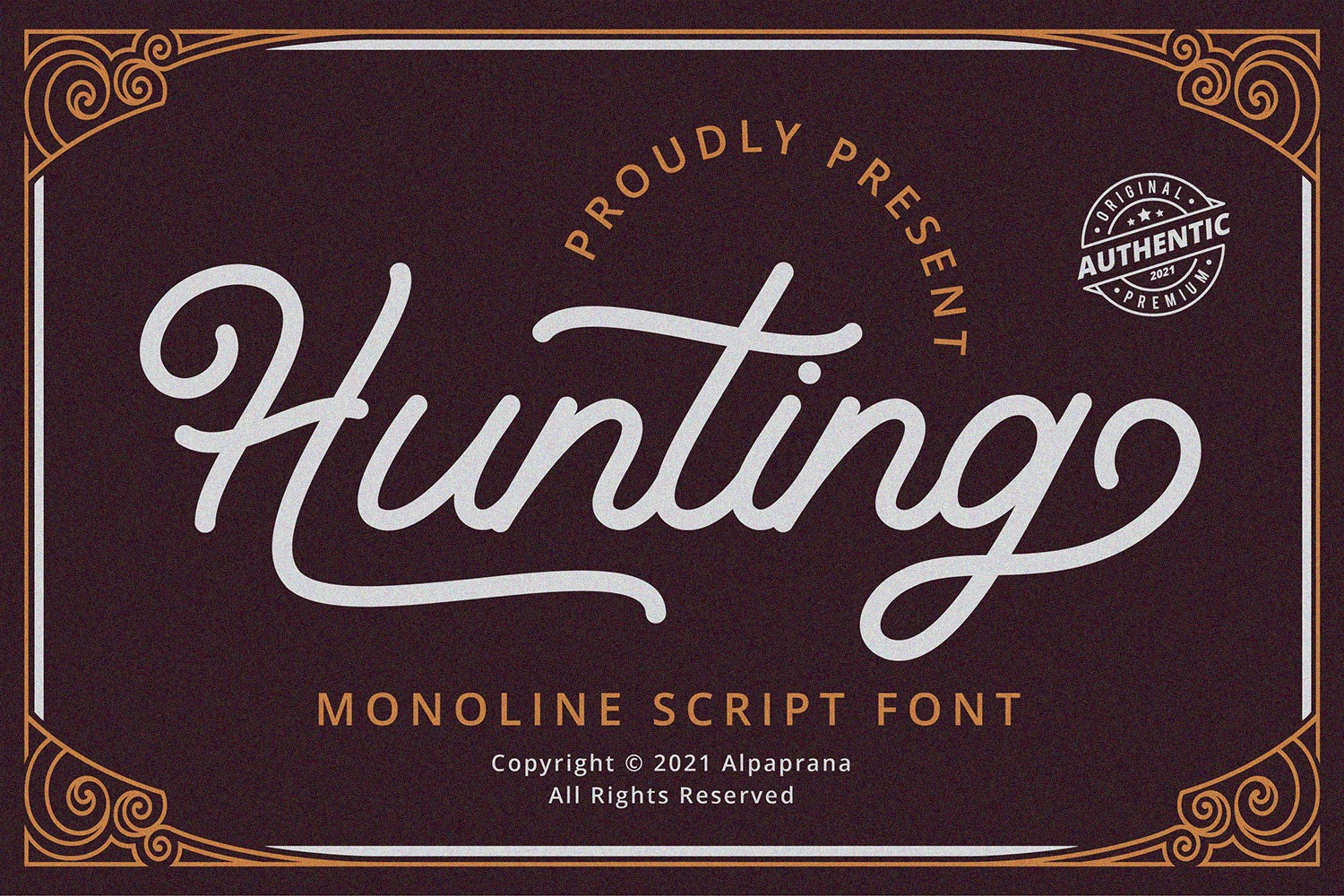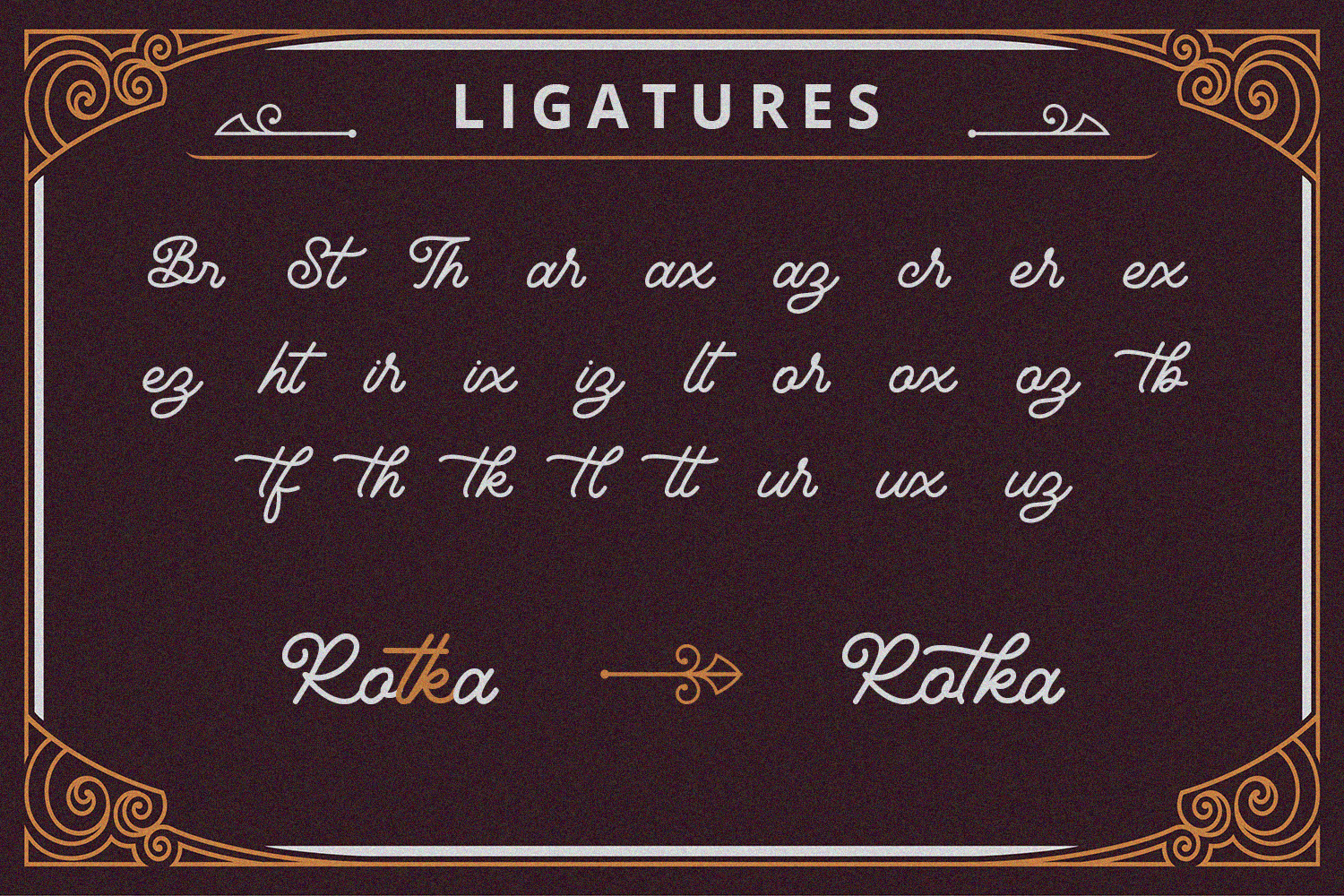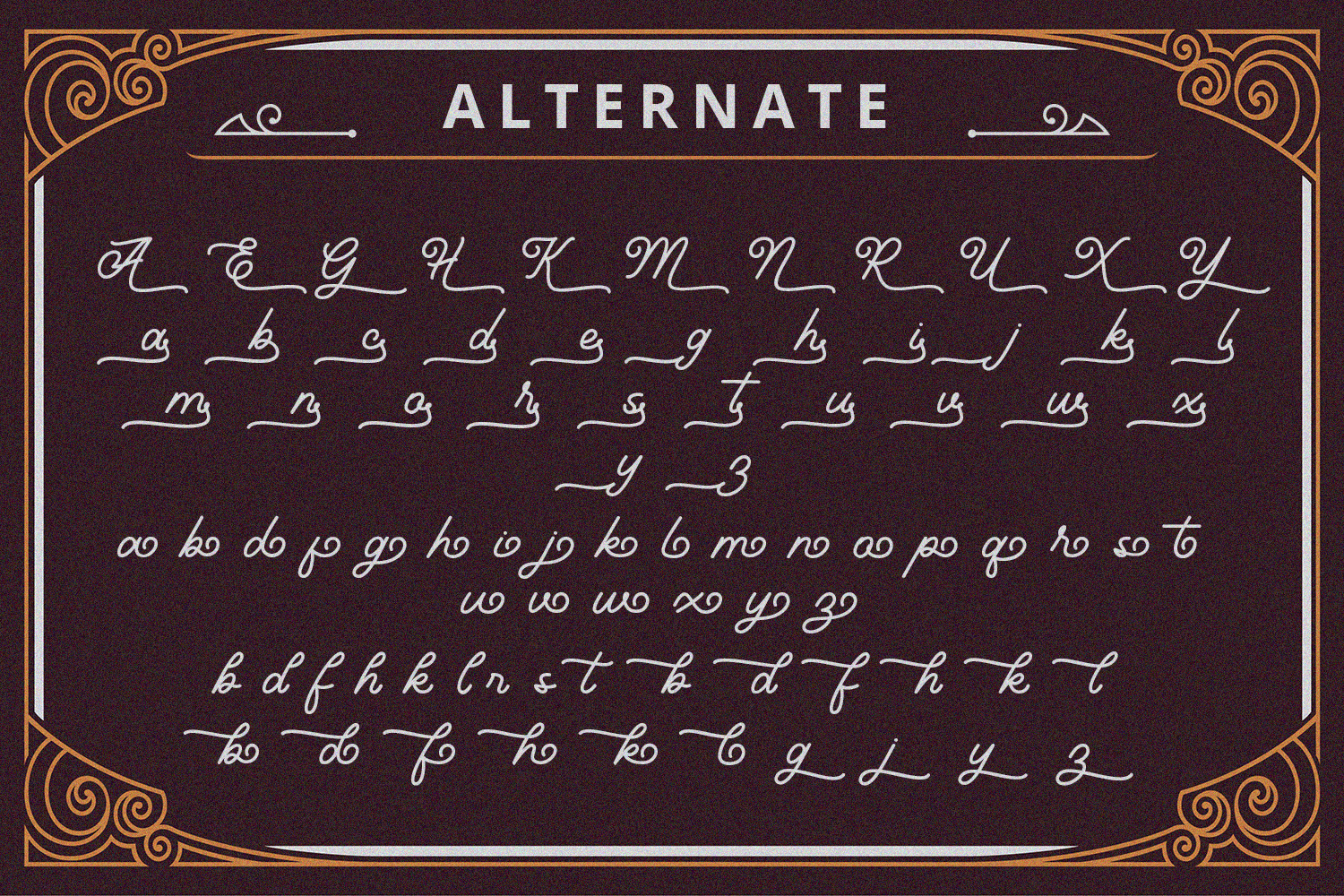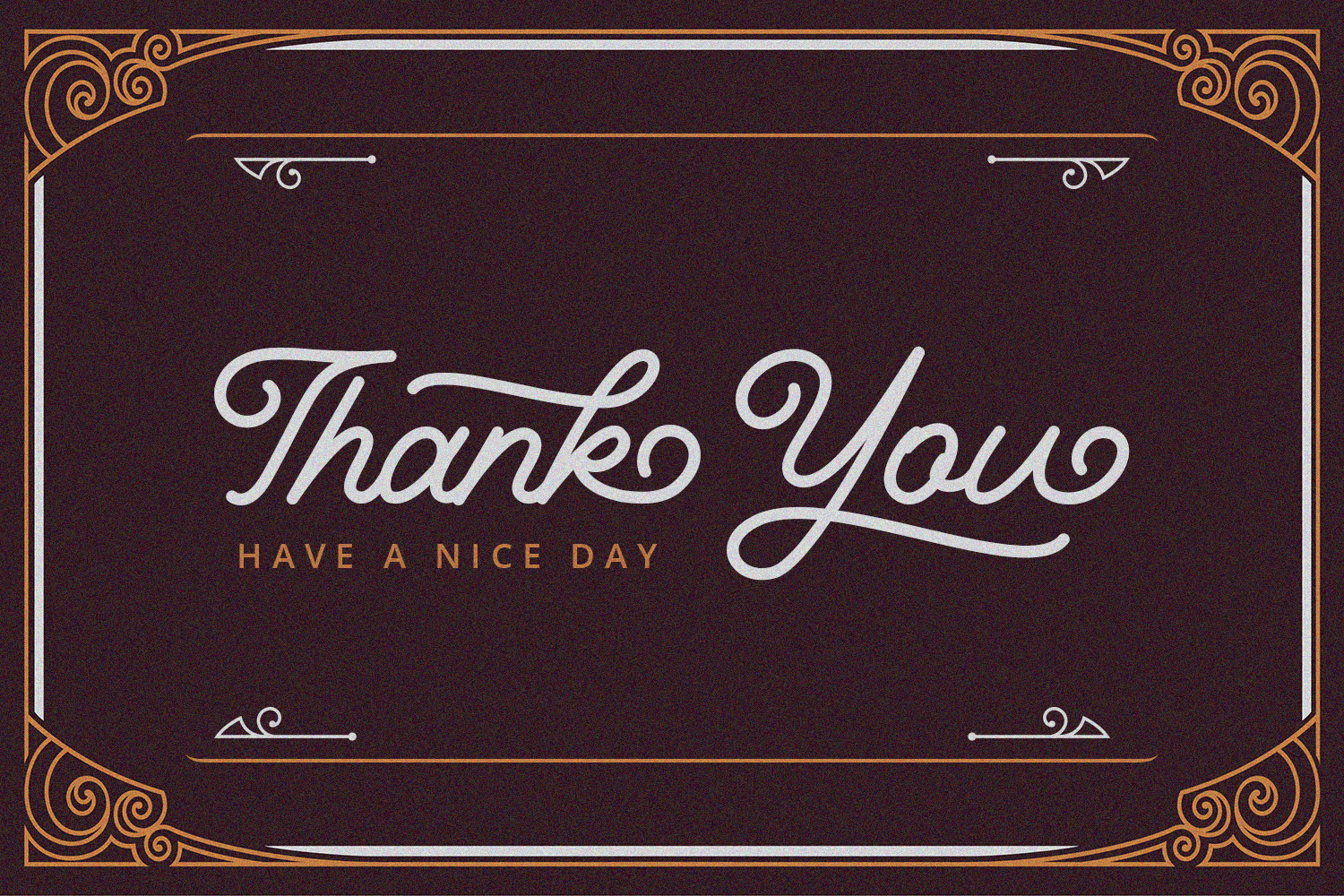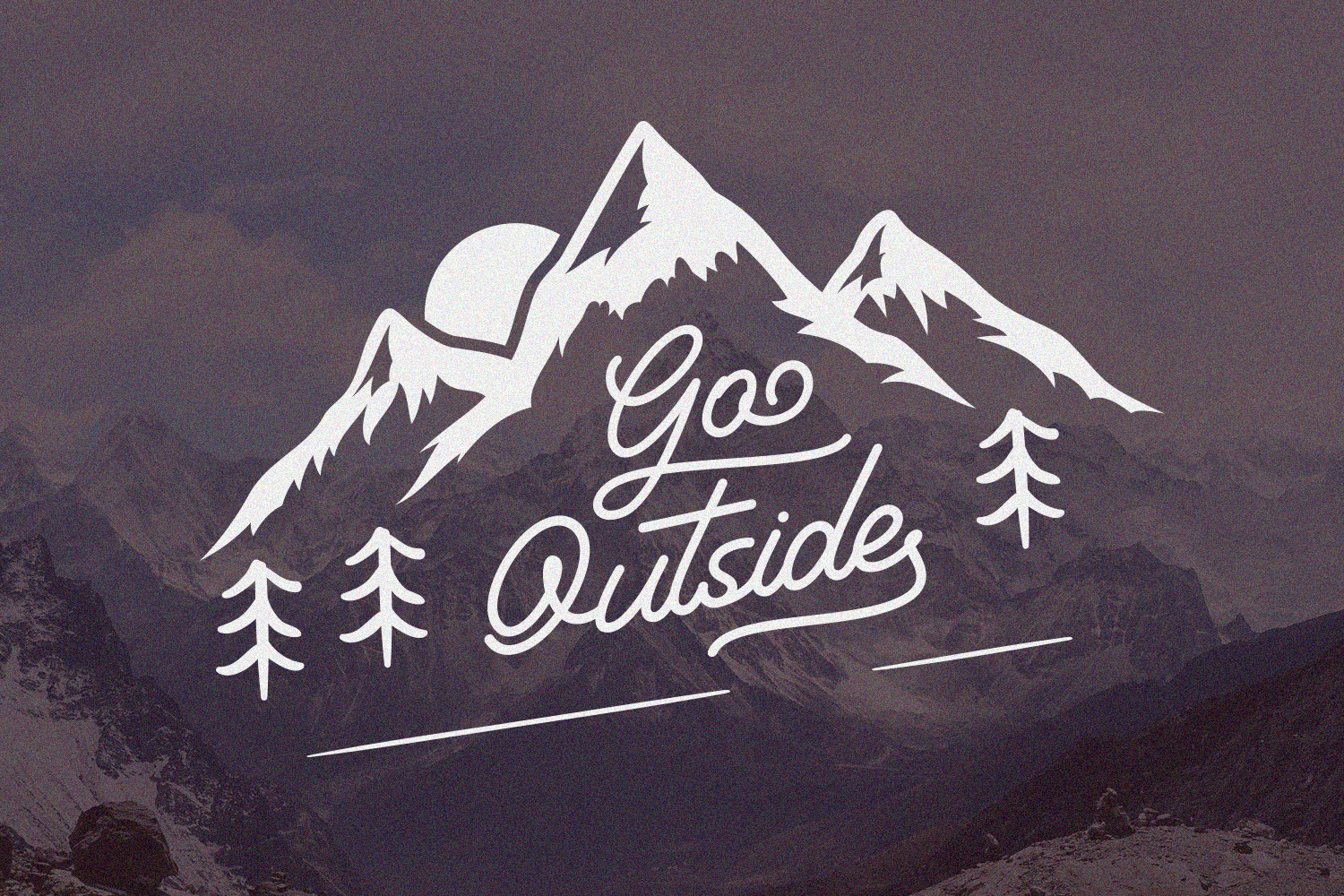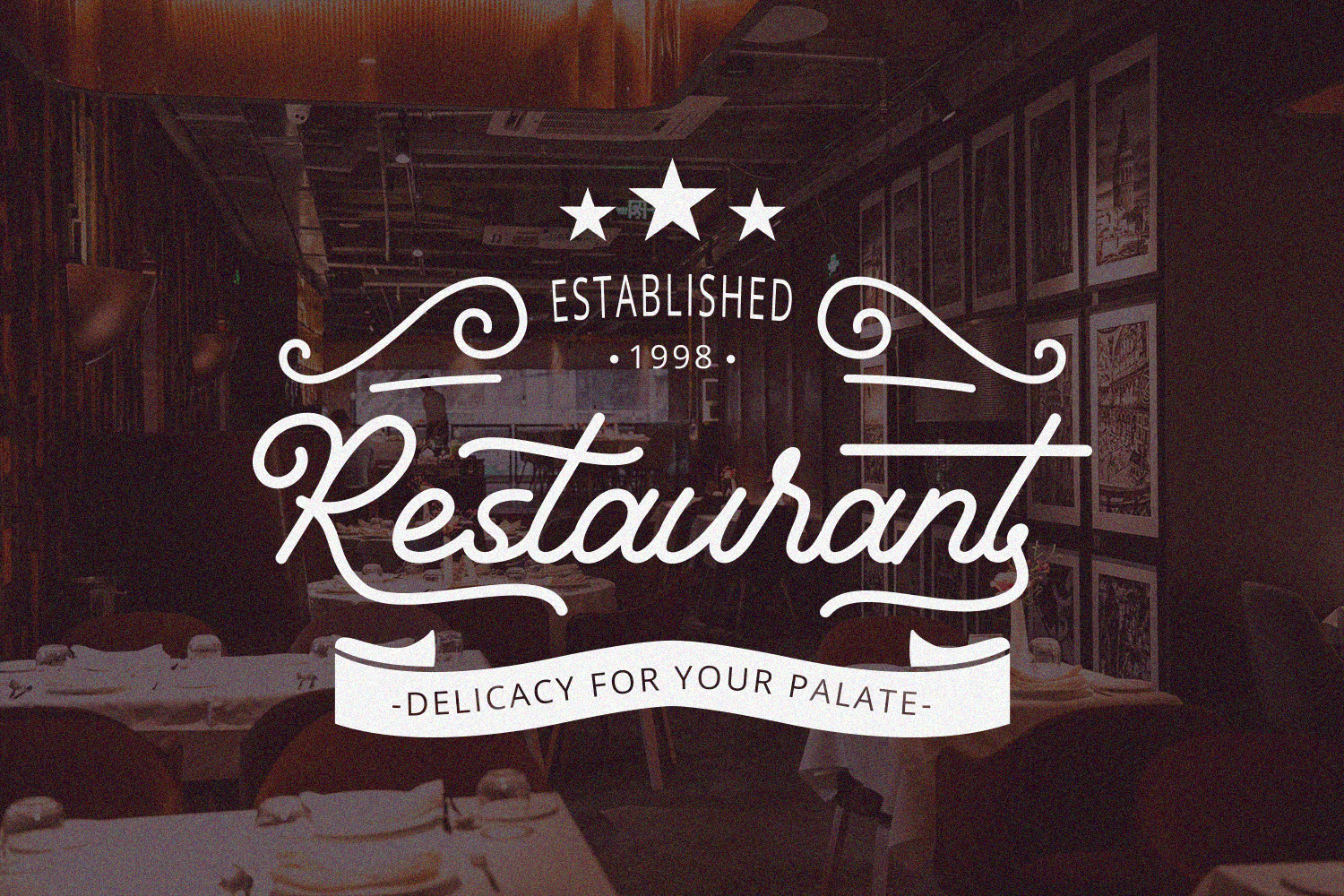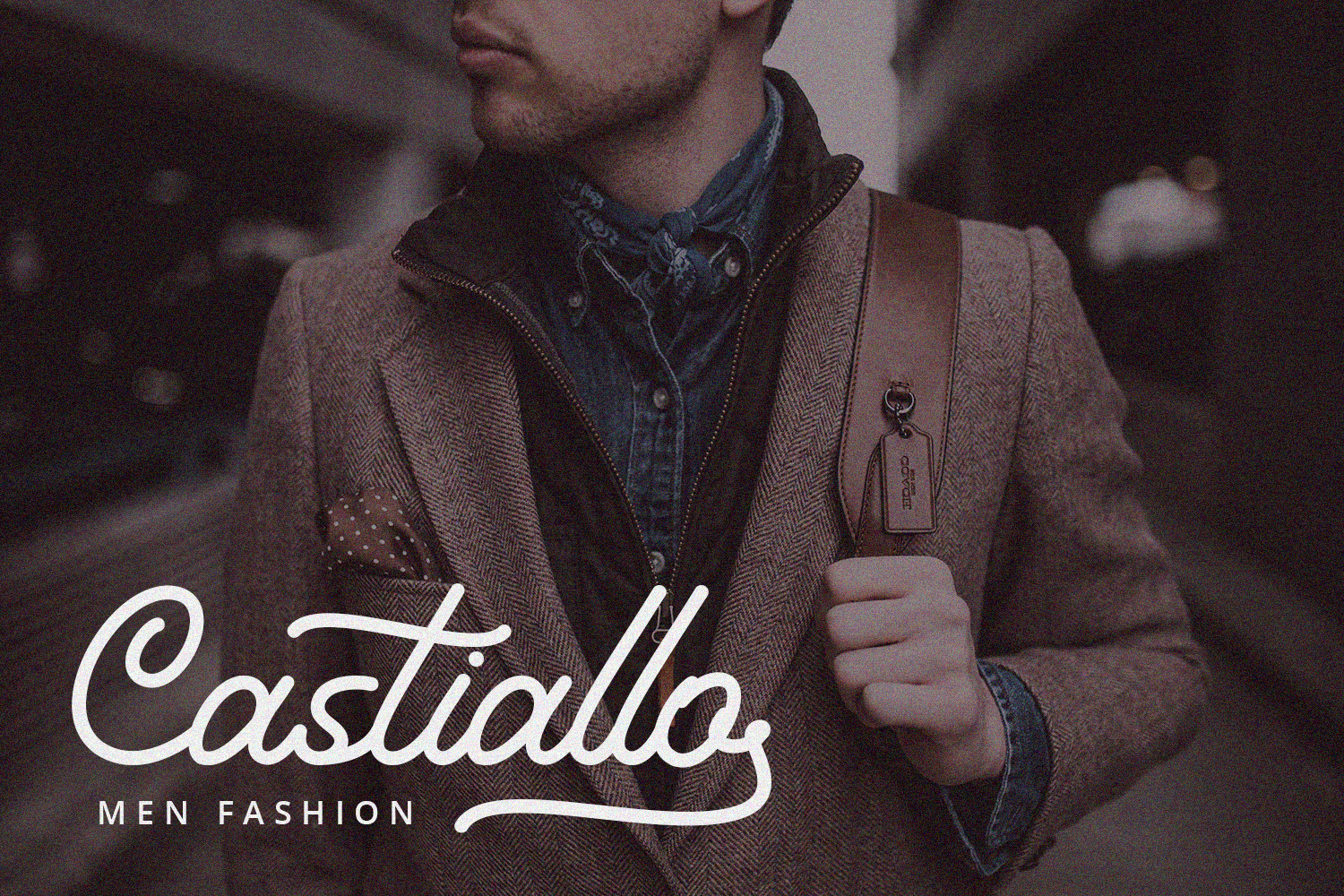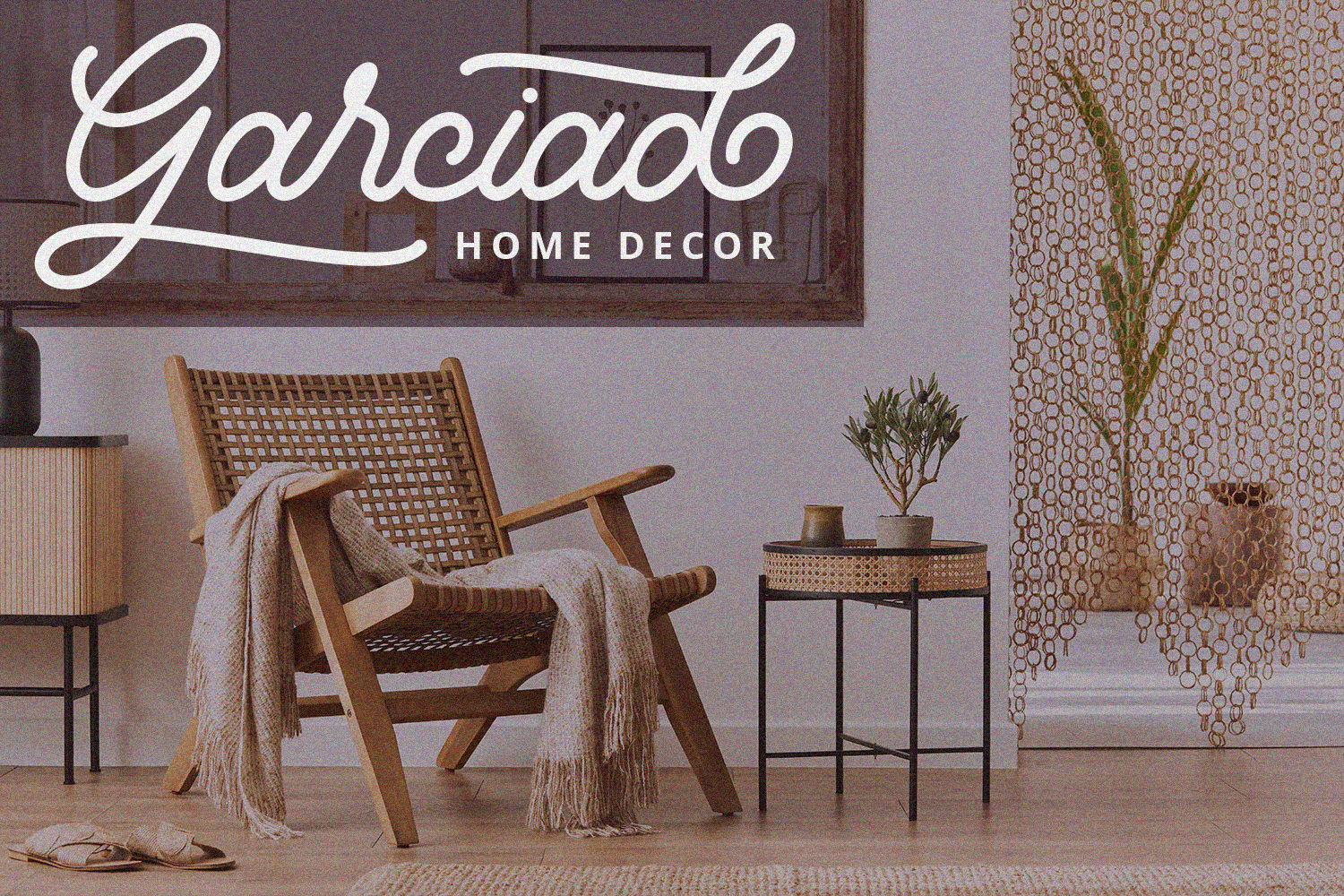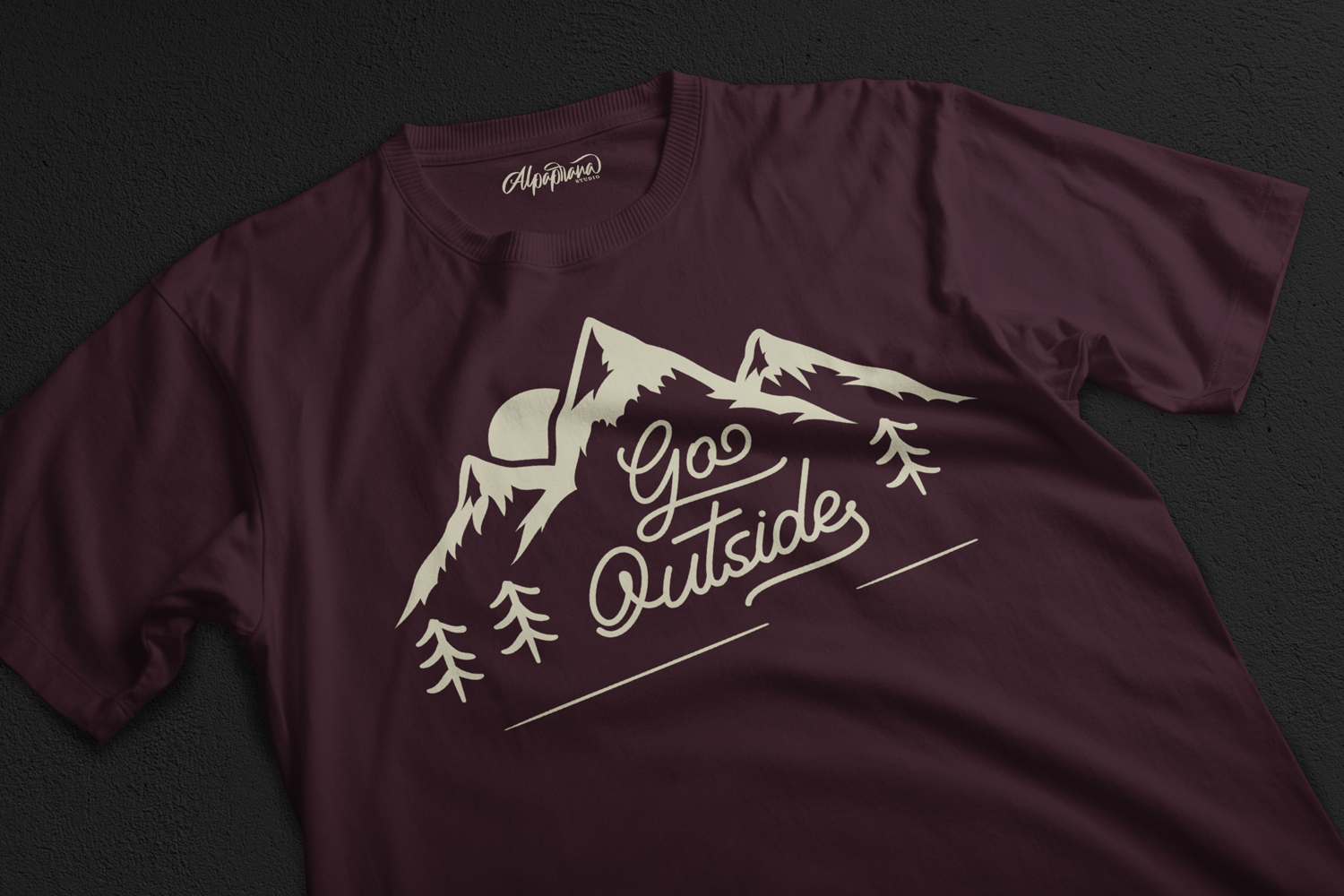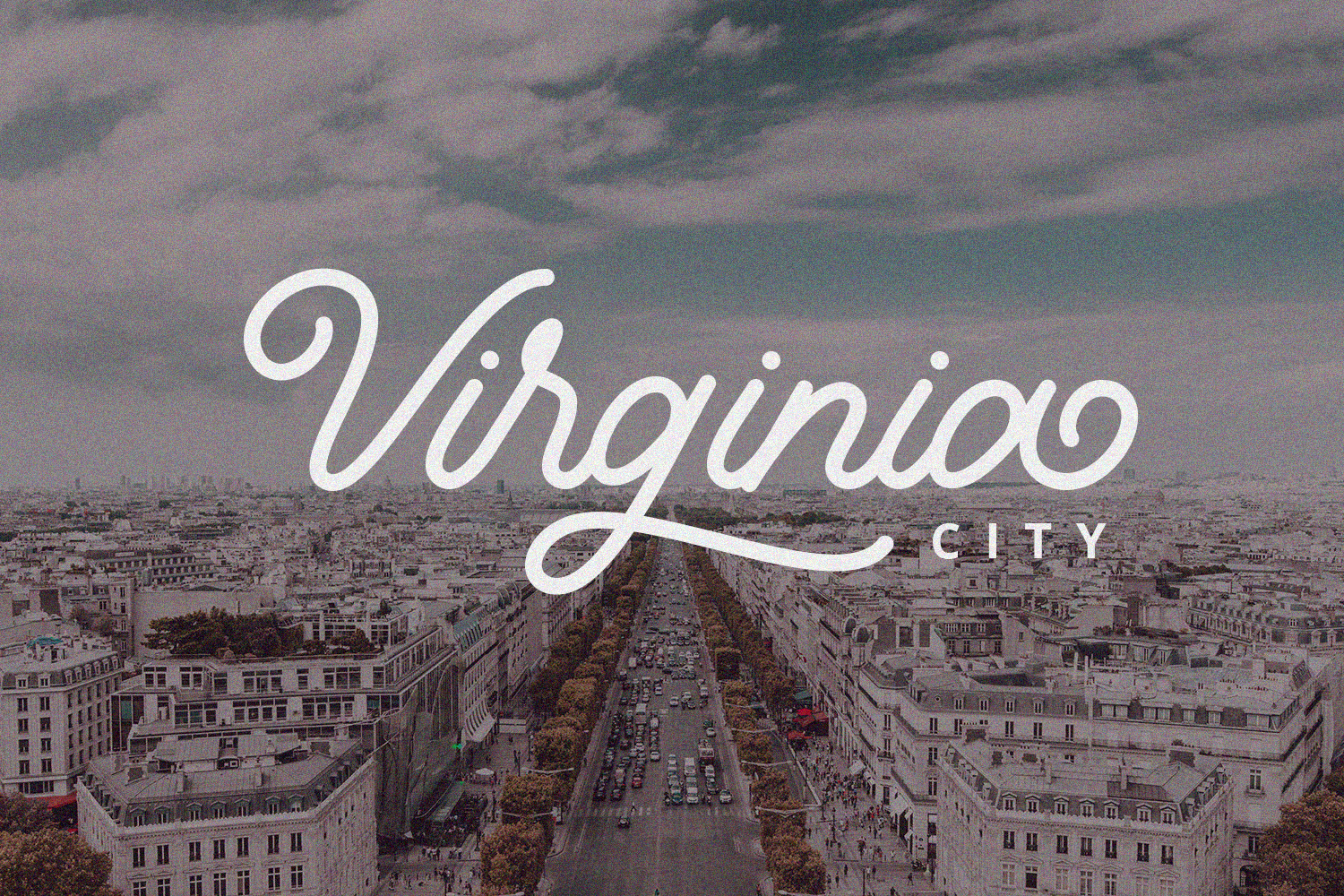
Hunting is a stunning monoline style script font with authentic and casual feels. It will be perfectly used for Branding, Logo Design, Lettering, Logotype, Clothing, Poster, magazine, packaging, posters, shopping bags, t-shirts, book covers, photography, special events and other design project.
Features:
- Uppercase & Lowercase
- Numerals
- Punctuations (OpenType Standard)
- Accents (Multilingual Characters)
- Ligatures and Alternative Style Stylistic Set